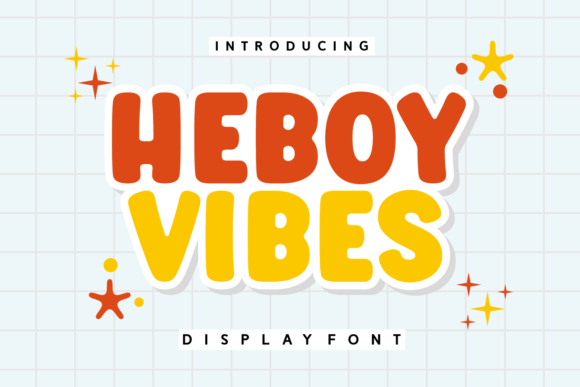
Introducing the Heboy Vibes Font – A Font So Playful, It Will Make You Smile.
Unleash the vibrant energy of Heboy Vibes, a display font that captivates with its bubbly, carefree charm. Designed by the talented Feri (7NTypes), this font is an artistic masterpiece that will transform your designs into joyful expressions of creativity.
With its playful strokes, Heboy Vibes captures the essence of youth and fun. It's perfect for adding a touch of whimsy and lightheartedness to your projects, whether it's a party invitation, a summer poster, or a cheerful social media post. Imagine your words dancing across the screen, brimming with personality and warmth.
Heboy Vibes is a versatile font that complements any project that calls for a friendly, approachable vibe. Craft eye-catching headlines, design vibrant logos, or create engaging branding materials that burst with personality. This font is a conversation starter, guaranteed to leave a lasting impression on your audience.
Don't be afraid to experiment with Heboy Vibes. Its playful nature invites you to be creative and explore new possibilities. Combine it with other fonts, add color, or play with different sizes – the options are endless. Let your imagination soar and watch as your designs come alive with the infectious energy of Heboy Vibes.